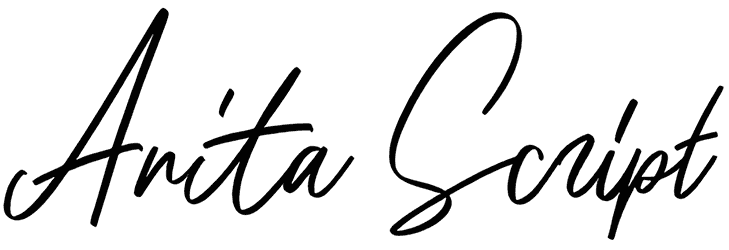
Since tapping into a recognizable font would be a guaranteed victory, utilizing a script font like Anita Script can ensure the success of your business cards, posters, or product packaging. Although its cursive styles and sophisticated flow lead to poor readability, this handwritten font still gives you the advantage of sharing a vibe of drama, delicacy, and personalization.